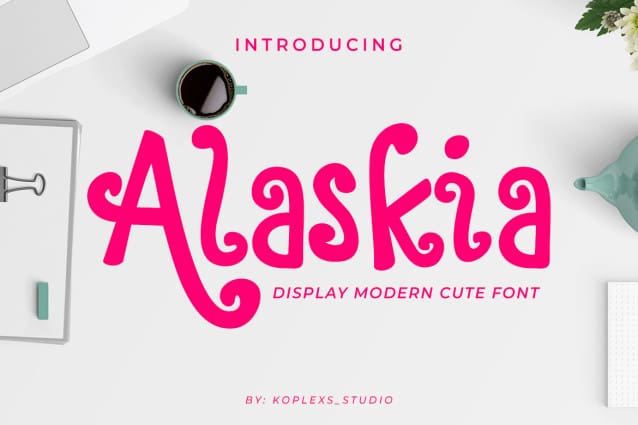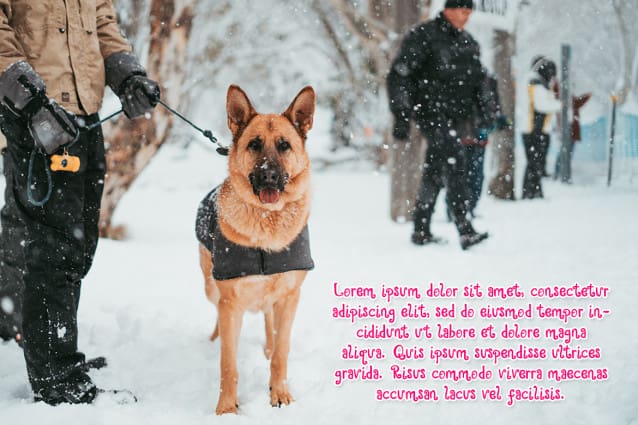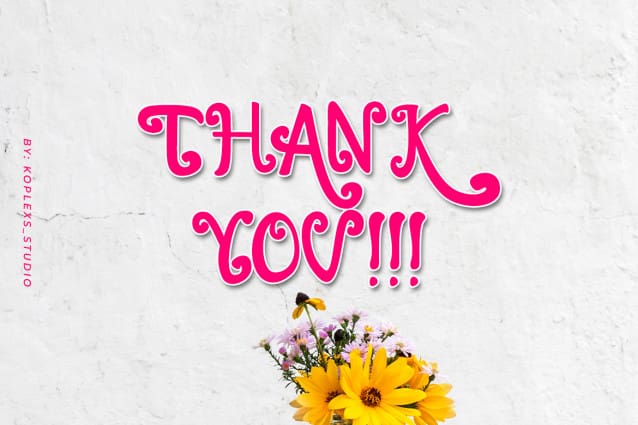
Alaskia Cute Font
Alaskia Cute Font is a smooth and incredibly unique handwritten font, designed with the help of a stylish marker. Fall in love with its versatile style and use it to create spectacular designs!